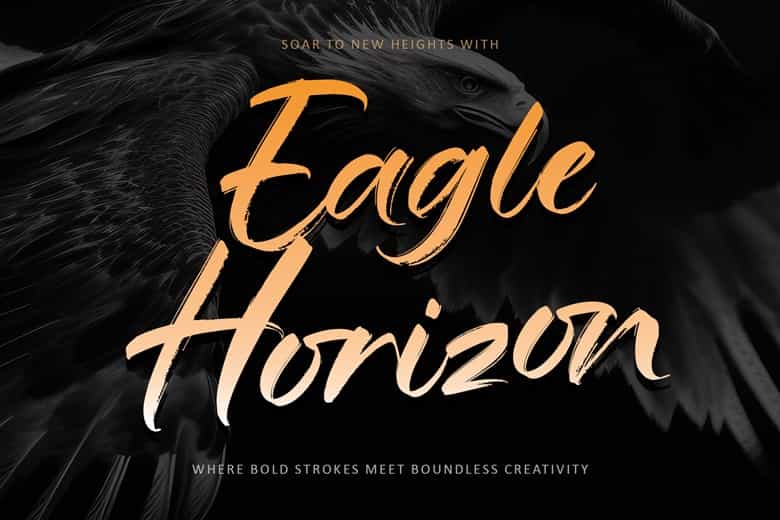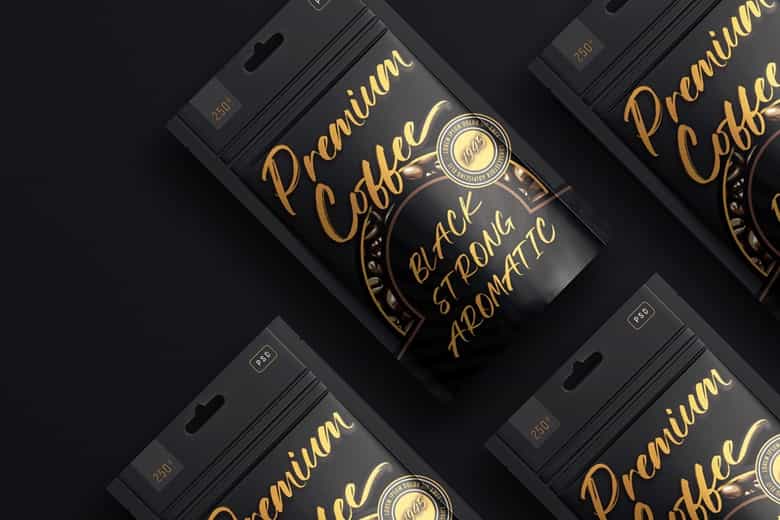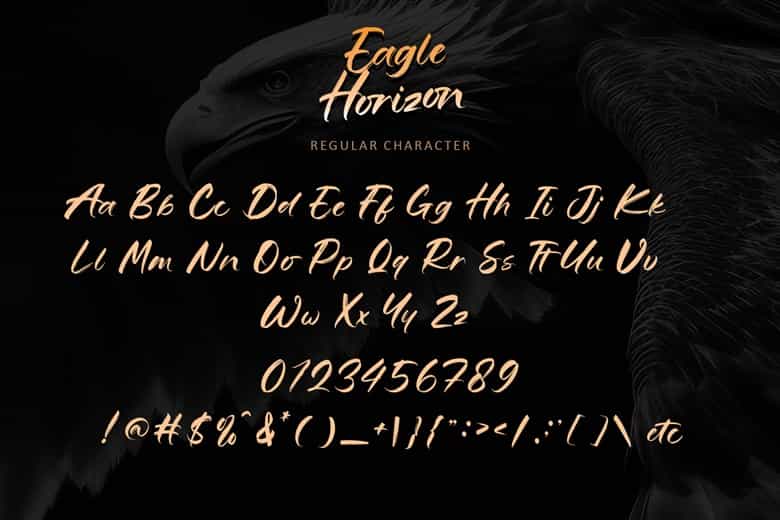
Eagle Horizon is a brush bold script typeface, that strikes in power and grace with firm authority and flaunting beauty. Meant to provide vigor anew into your creations, we incorporated strong, arching lines and an artistic stroke that applies a vivid feel into the mix. Pal especially for logos, and posters, and packaging designs and any other designs that may be needed.